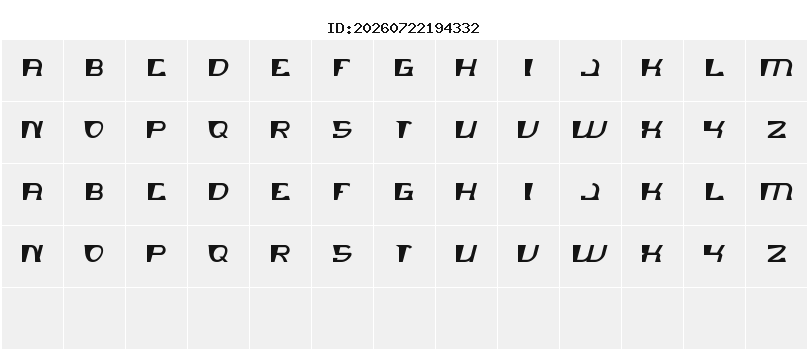
mercury Preview
• Font Name: mercury
About mercury.ttf
mercury.ttf is a modern, elegant sans-serif font designed for ultimate readability and visual harmony. Perfect for branding, headlines, web design, and print materials.